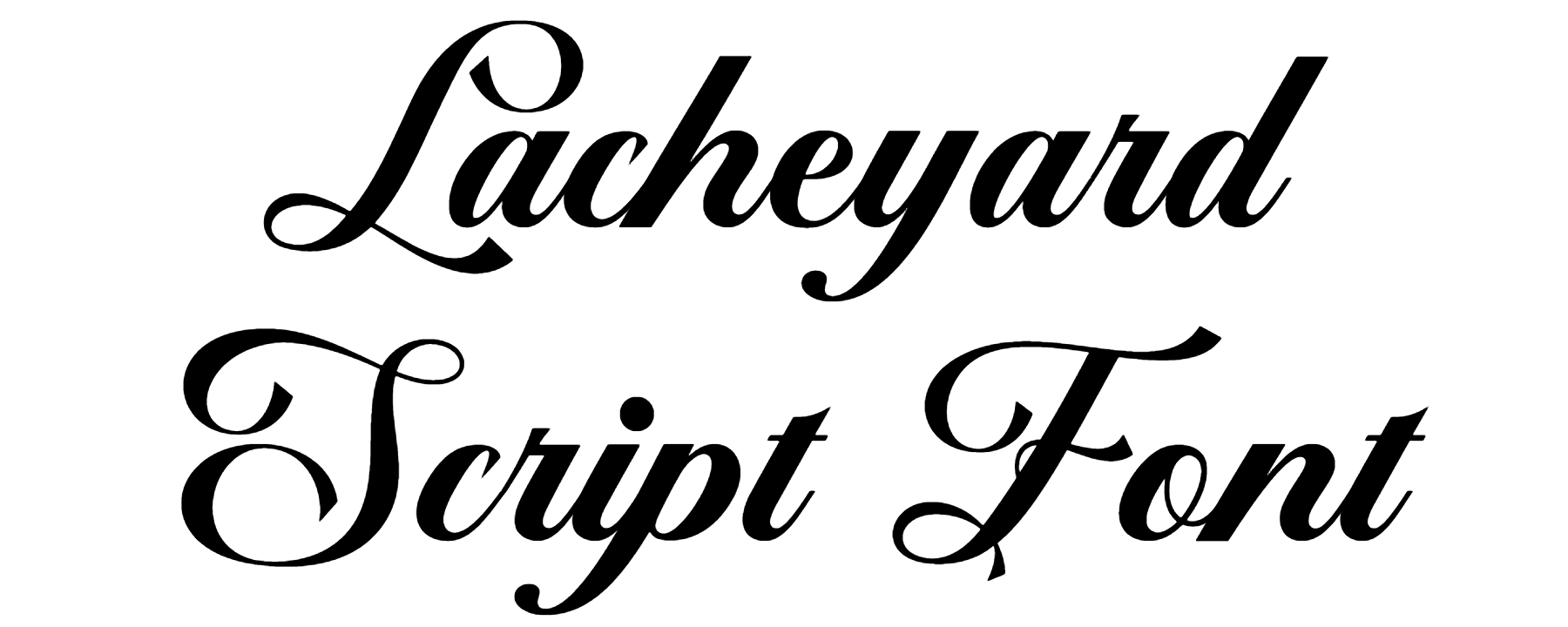
Lacheyard Script Font for personal use is a fancy font created by Mans Greback and released through Mans Greback AB (2025). Bold and full of character, it's built to stand out rather than blend in. You can download it for free and test it with your own words in the preview above.
- Glyphs: 974
- OpenType features: Ligatures (including optional ones), 12 stylistic sets, small caps, old-style numbers and fractions
- Extra characters: 120 copy-and-paste alternates (Private Use Area)
What You Can Type With Lacheyard Script Font for personal use
You get every letter from A to Z in both cases and all the numbers from 0 to 9, which means Lacheyard Script Font for personal use can handle full sentences, dates and prices. Everyday marks like &, !, ? and @ are there too. Thanks to its accented letters, it also works for Spanish, French, German, Portuguese and Italian, not just English.
Where Lacheyard Script Font for personal use Works Best
Designers usually reach for fonts like Lacheyard Script Font for personal use when they're making posters, logos and eye-catching headlines. Its lowercase letters are small compared to the capitals, so set it a size or two bigger than usual. Use it for one standout word or headline and let simpler fonts handle the rest.